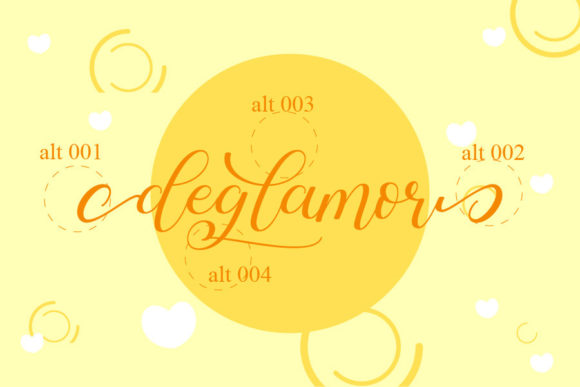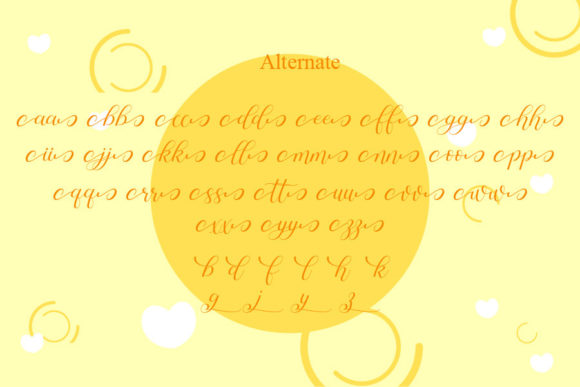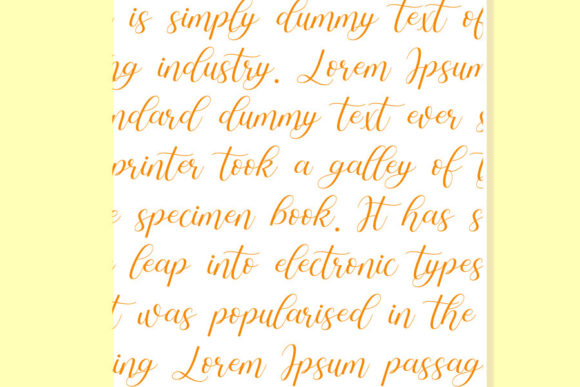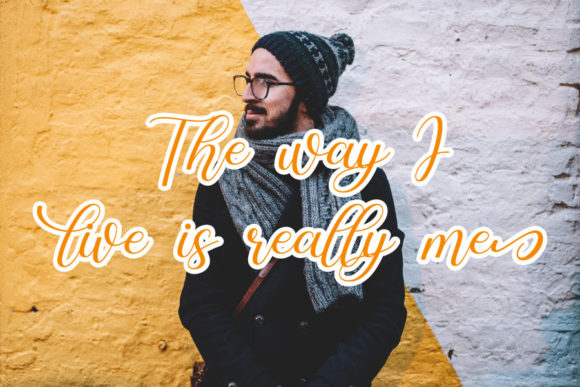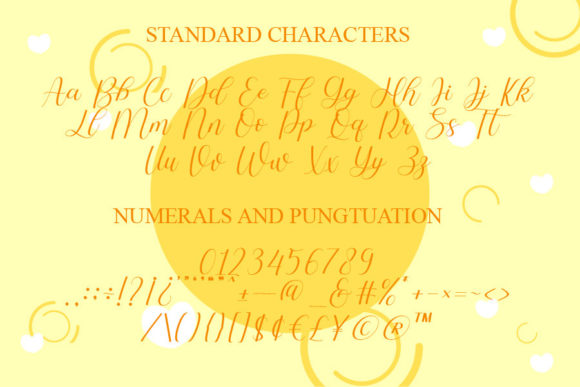
Introducing Deglamor Font: Elevate Your Designs with Elegance and Class
In the world of design, typography plays a crucial role in conveying the message and aesthetic of a project. For those seeking a font that embodies elegance and sophistication, look no further than Deglamor Font. This lovely and delicate script font is specifically crafted for designers and crafters who desire a beautiful and refreshing look for their creations.
What Makes Deglamor Font Special?
Deglamor Font stands out from the crowd with its unique blend of elegance and delicacy. Its script style exudes a sense of refinement and luxury, making it perfect for projects that require a touch of sophistication. Whether you’re working on a branding project, packaging design, or digital content, Deglamor Font is sure to impress.
One of the key features that sets Deglamor Font apart is its PUA (Private Use Area) encoding. This means that users can access all the glyphs and swashes with ease, allowing for greater flexibility and creativity in design. With PUA encoding, you can effortlessly navigate through the font’s extensive character set, including alternates, ligatures, and ornaments, to create stunning and unique designs.
Deglamor Font is an excellent choice for designers and crafters who want to add a touch of elegance to their work. Whether you’re creating:
- Branding materials, such as logos, business cards, or letterheads
- Digital content, like social media graphics, blog posts, or email newsletters
- Packaging designs, including labels, tags, or product inserts
- Stationery, like invitations, greeting cards, or journals
Deglamor Font is the perfect companion to help you achieve your design goals.
Tips for Using Deglamor Font
To make the most of Deglamor Font, here are some tips to keep in mind:
- Pair Deglamor Font with a clean and simple sans-serif font for a striking contrast
- Use the font’s swashes and glyphs to add decorative touches to your design
- Experiment with different font sizes and colors to create visual hierarchy
- Take advantage of PUA encoding to access the font’s full character set
In conclusion, Deglamor Font is a beautiful and elegant script font that can elevate your designs to new heights. With its PUA encoding and extensive character set, this font offers endless possibilities for creative expression. Whether you’re a designer or crafter, Deglamor Font is an excellent addition to your typography collection.